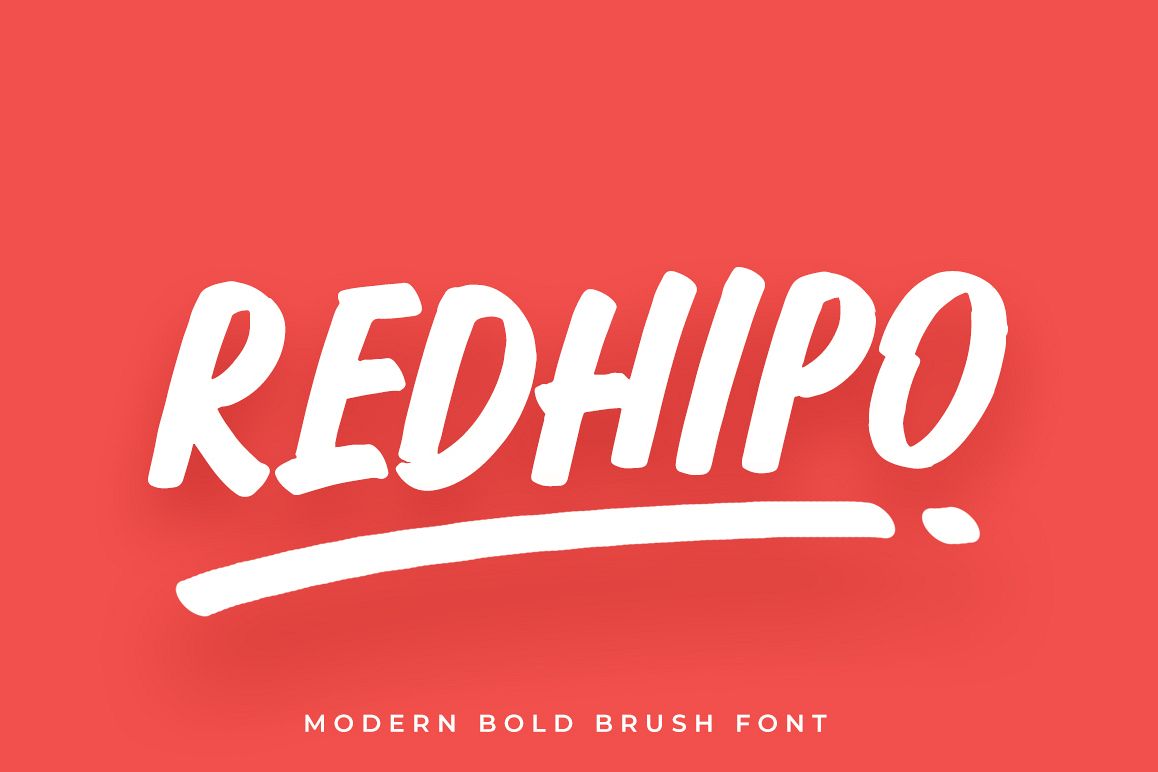
Redhipo Modern Brush
Redhipo Modern Bold Brush, with a bold weight perfect for adding some romance and charm to your designs.
This script functions most strongly as a display or headline font. suitable for logo, logotype, branding, fashion, label, book cover, t-shirt, instagram post, and other.